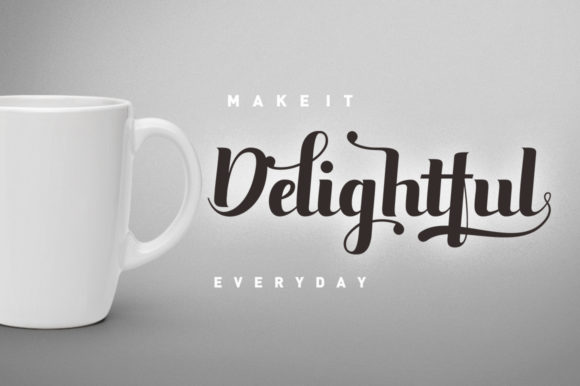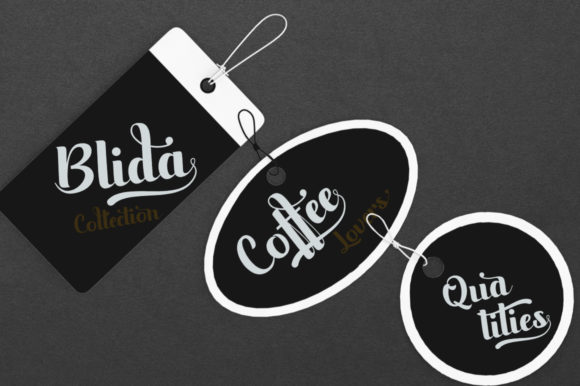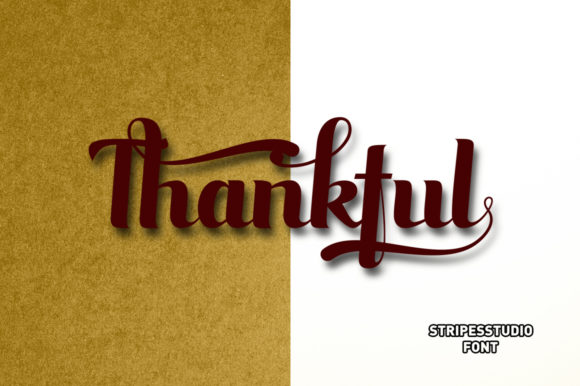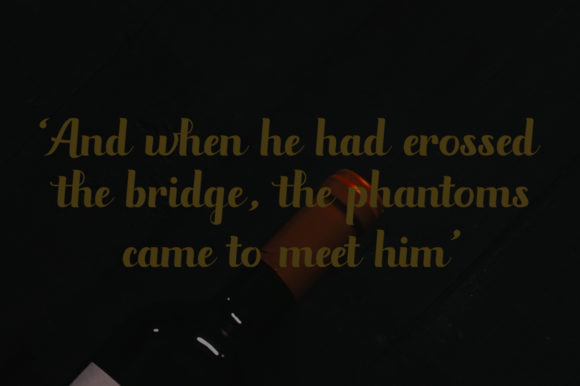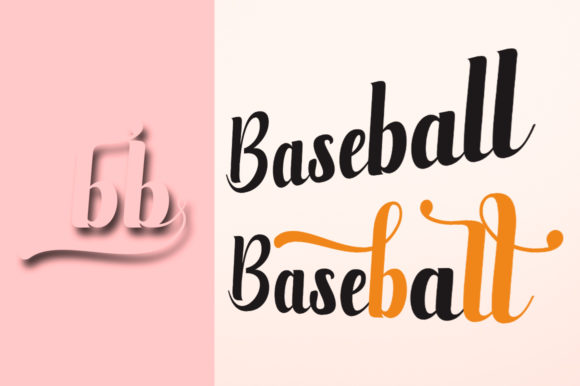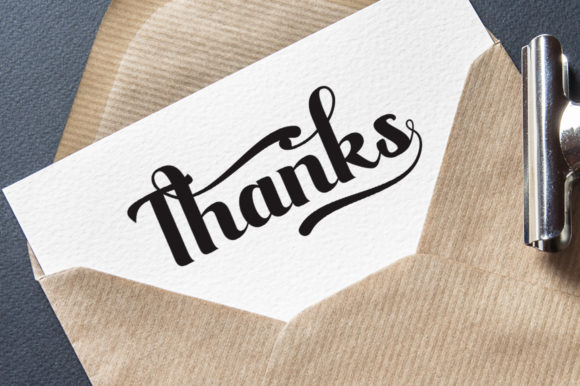
Introduction to Schuyler Script Font
As a designer, have you ever been stuck in the middle of a creative project, searching for that perfect font to bring your vision to life? I know I have. And then, like a breath of fresh air, you stumble upon a font that just feels right. For me, that font is the Schuyler Script Font – a modern script font that exudes timeless authenticity.
What I love about the Schuyler Script Font is its high quality design, making it a valuable resource for any creative project. With its beautiful, flowing lines and transparent background, it adds a touch of elegance to any design. Whether you’re working on a logo, branding, or typography project, this font is sure to impress.
Key Features of Schuyler Script Font
- High-quality design: Schuyler Script Font offers a unique, elegant script style perfect for creative projects that require a touch of sophistication.
- Unique ligatures and swashes: The font’s distinctive ligatures and swashes add a creative touch to your design, making it perfect for projects that require a personal and artistic feel.
Honest Review: Schuyler Script Font
I recently had the opportunity to work with the Schuyler Script Font, and I must say it’s been a game-changer for my creative projects. This font is a high-quality design resource that adds a touch of elegance to any design. Its beautiful, handwritten style is perfect for creating eye-catching titles, headings, and even entire paragraphs.
- Beautiful, handwritten style
- Only available in a single weight, which can make it difficult to use for complex designs
- Not ideal for body text due to its decorative style
Overall, I’m thoroughly impressed with the Schuyler Script Font. Its beauty, versatility, and value make it an excellent addition to any designer’s toolkit. While it may not be perfect, it’s a valuable resource that’s sure to elevate your designs to the next level.
The Schuyler Script Font is a great design resource for creative projects such as wedding invitations, birthday party invitations, and other special occasion designs. It’s also a popular choice for branding and marketing materials, such as logos and business cards.